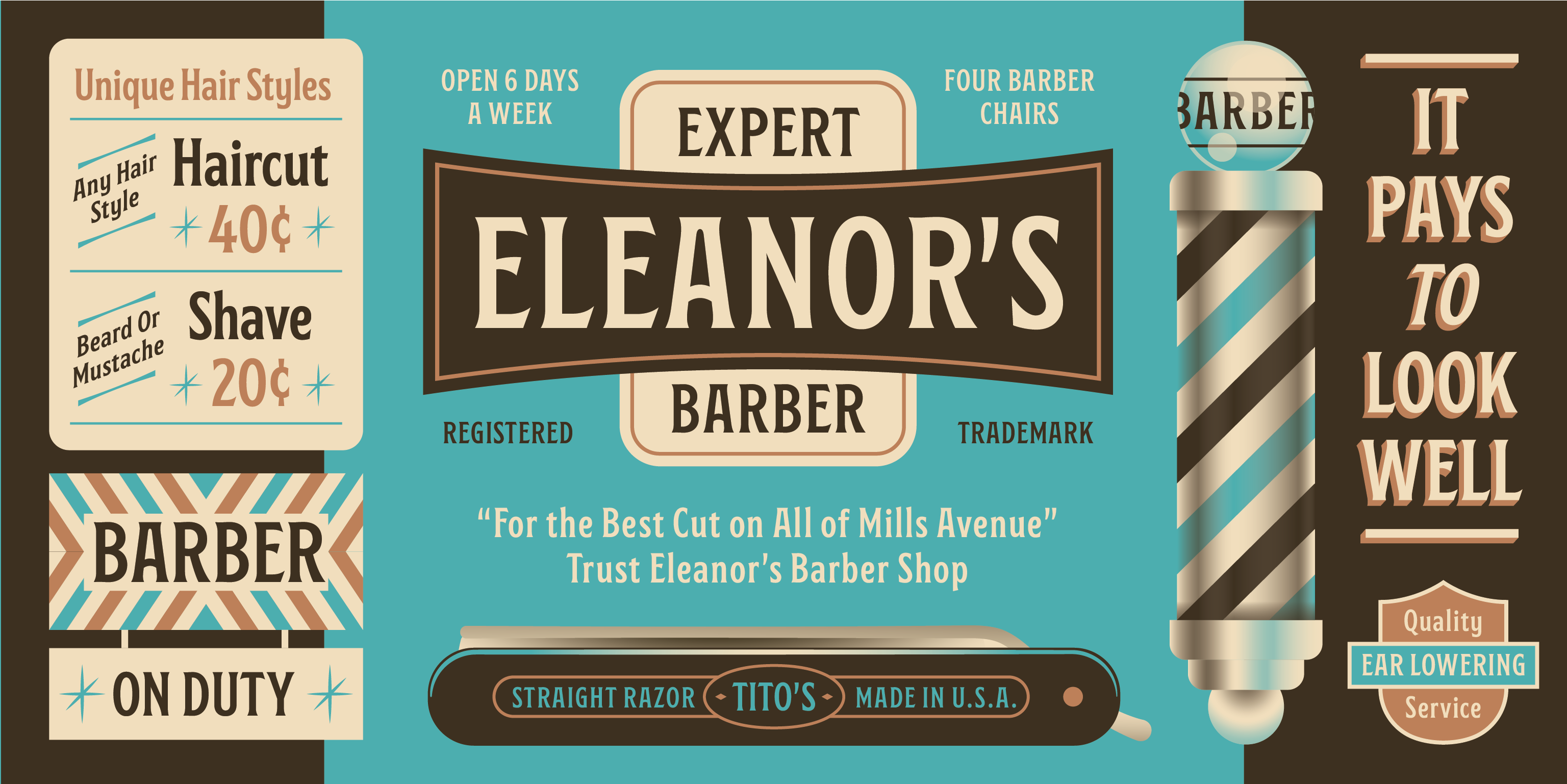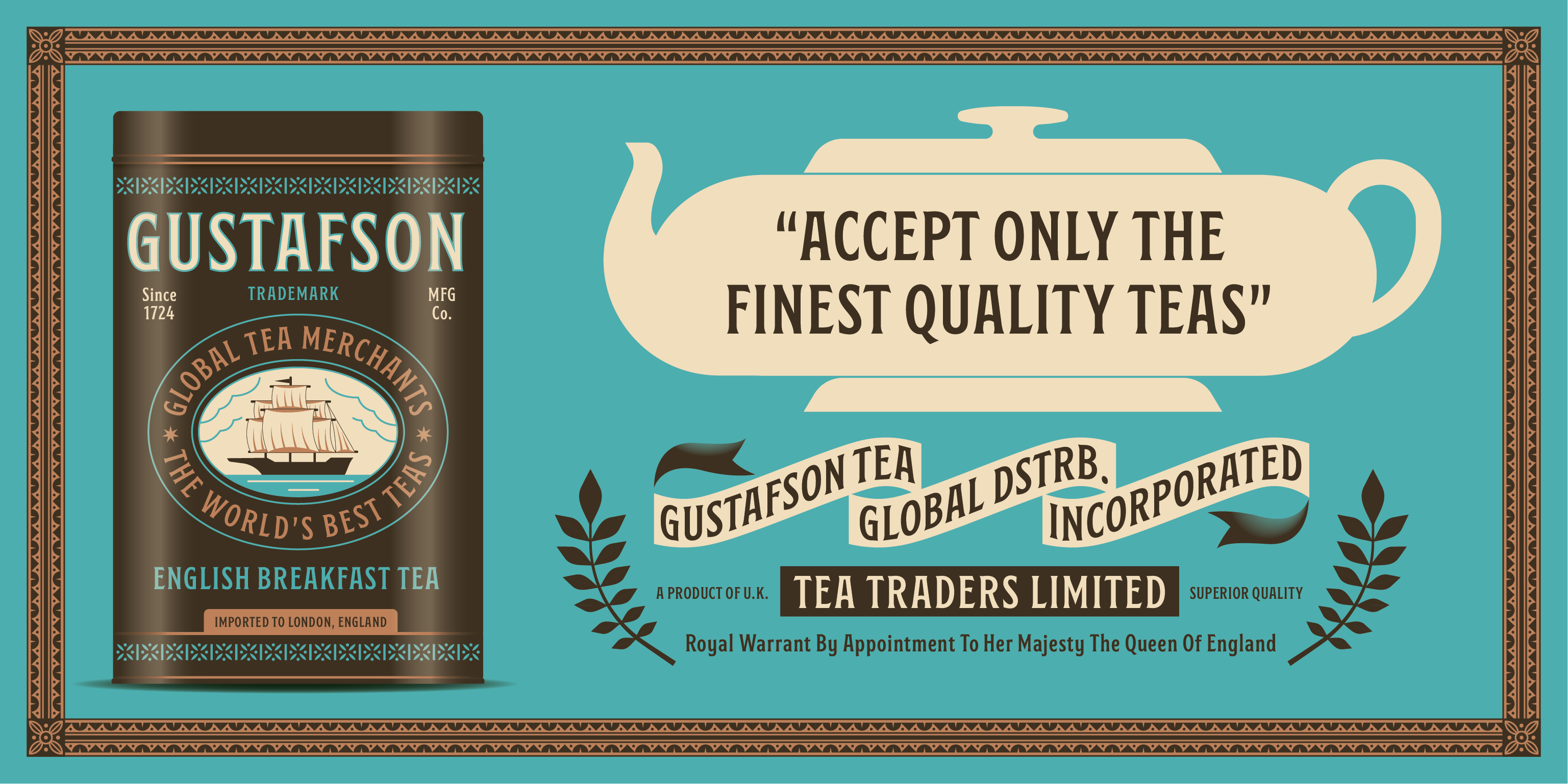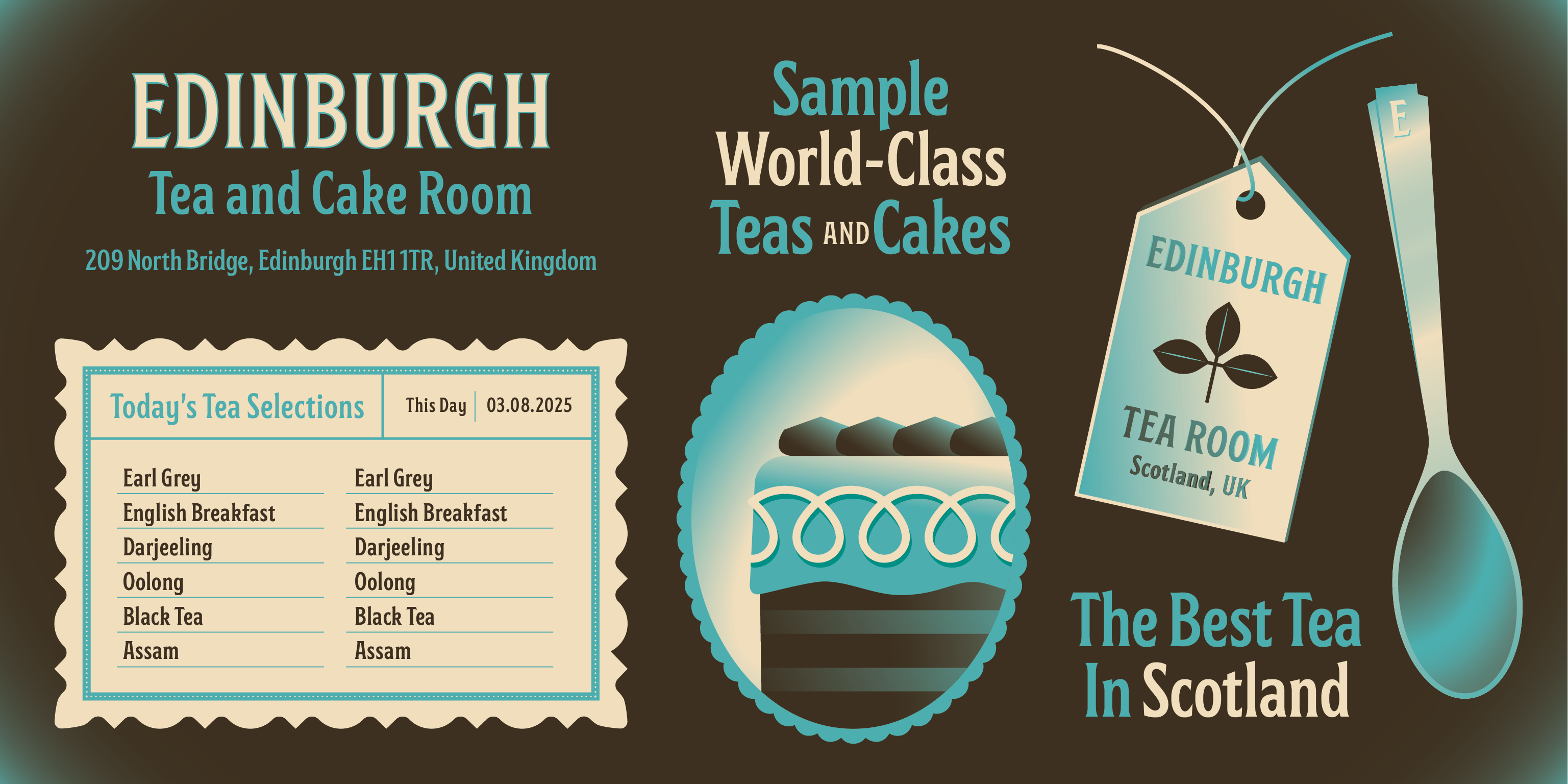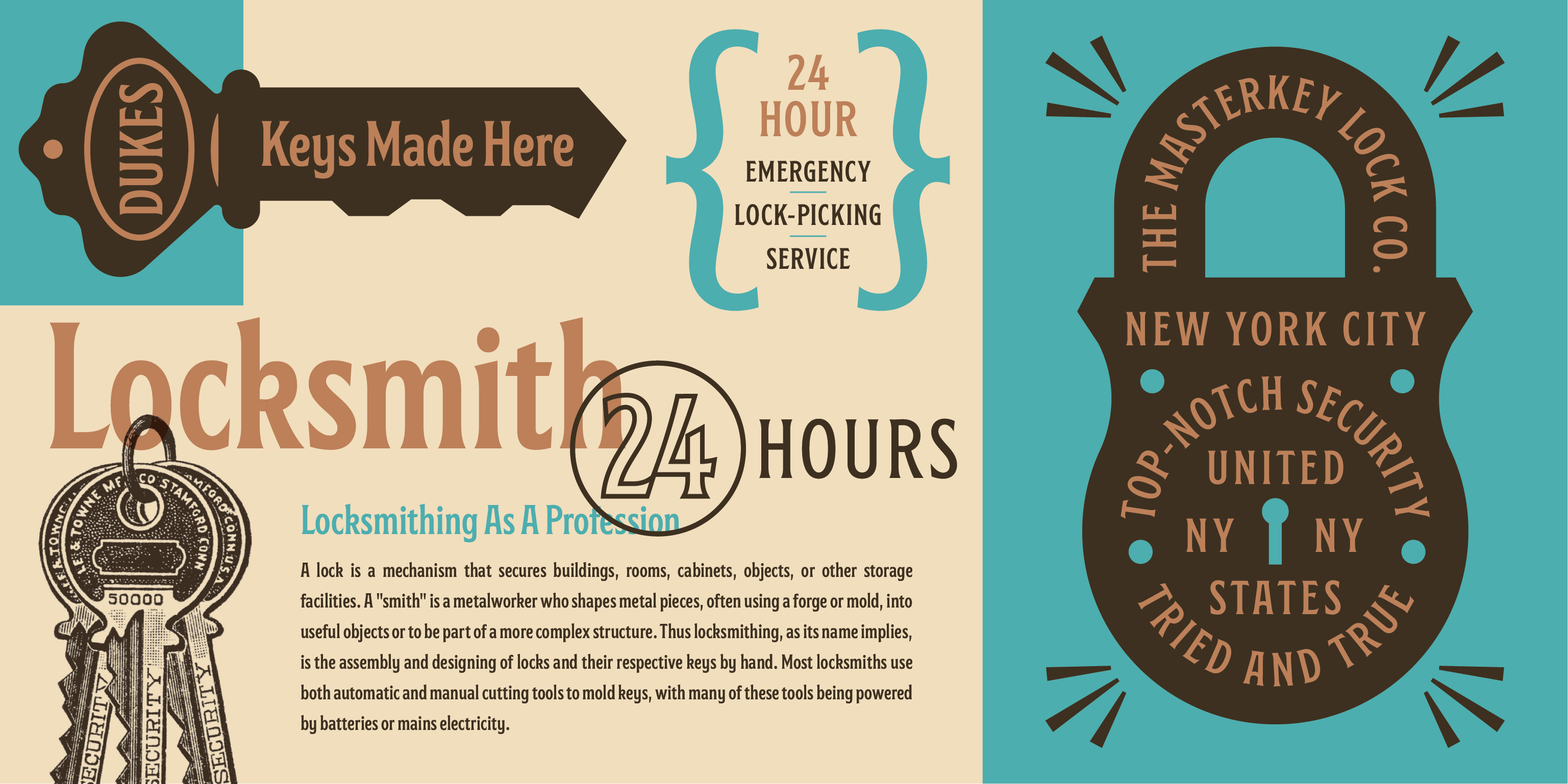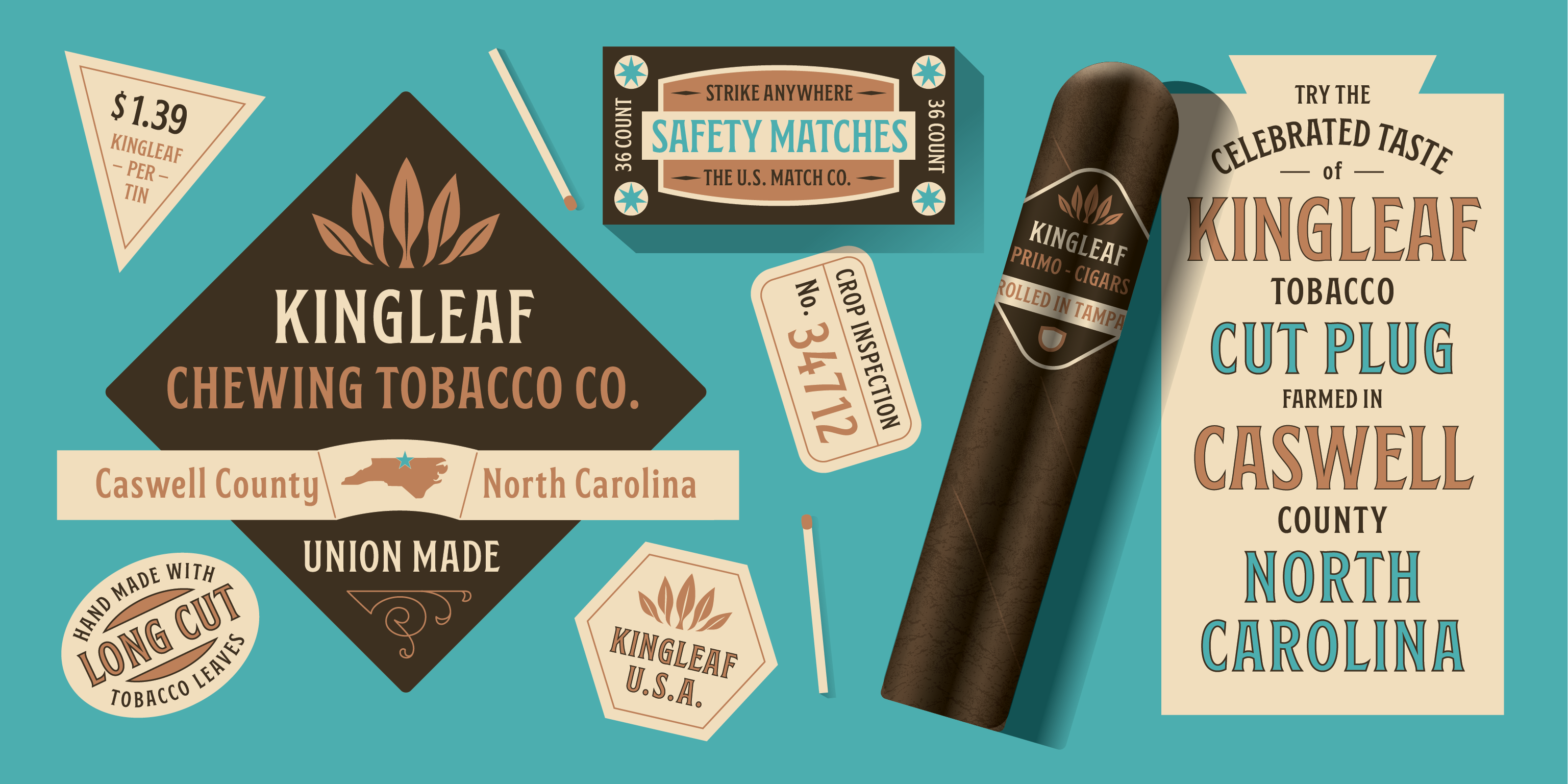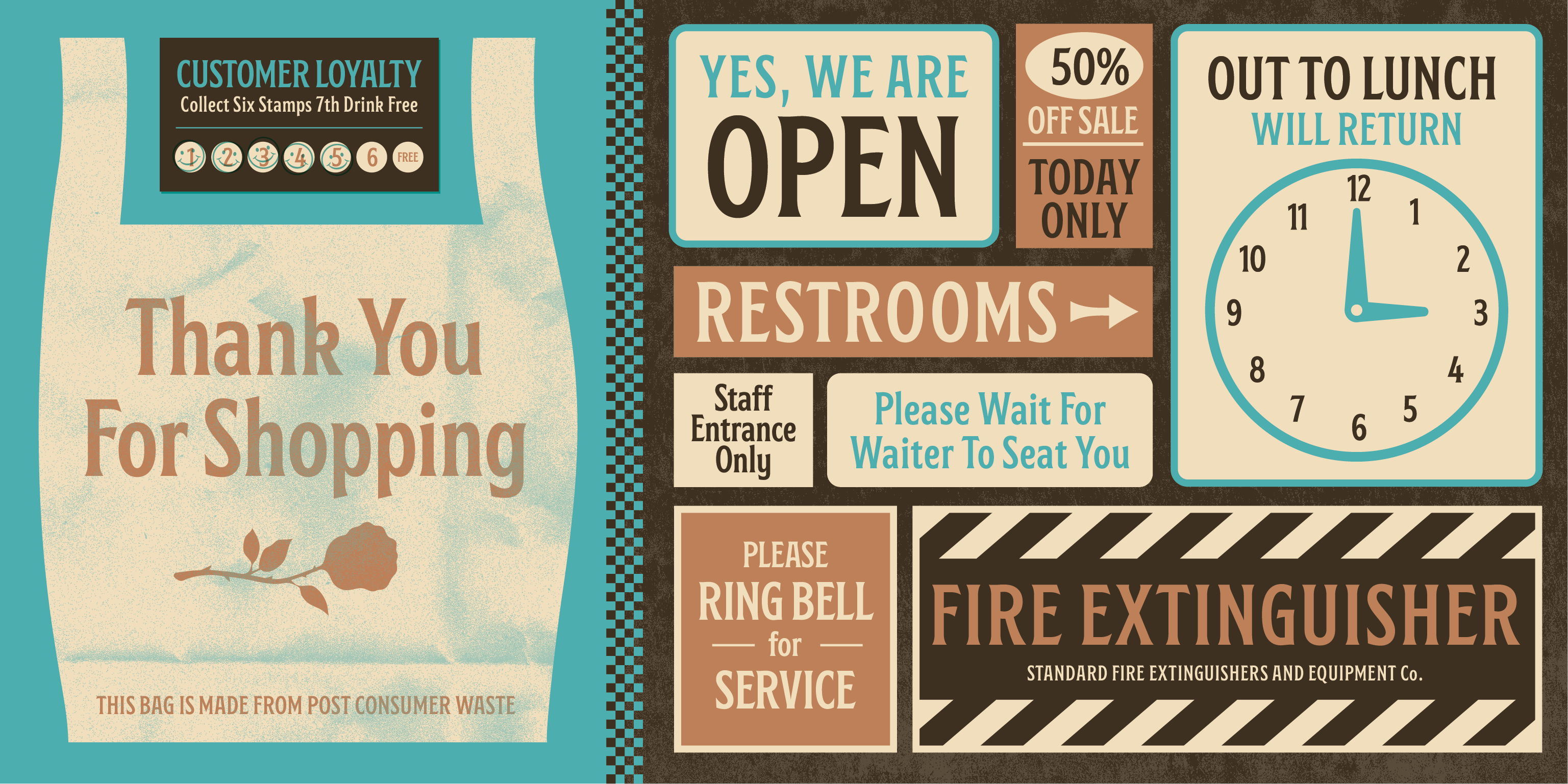
Mastermind
Serif
An elevated flare serif comfortable in service to timeless and pragmatic concerns alike.
Mastermind is a condensed flared serif that captures the magical feeling you'd get opening a liquor cabinet that hadn't been opened in 100 years, or looking at the shelves of an office of a generational tobacco farm. Combining subtle influences from 20th-century sign painting with the subtle hints of ornate charm of late 19th century print ephemera, Mastermind brings a robust character to bear that's both nostalgic and strikingly contemporary.